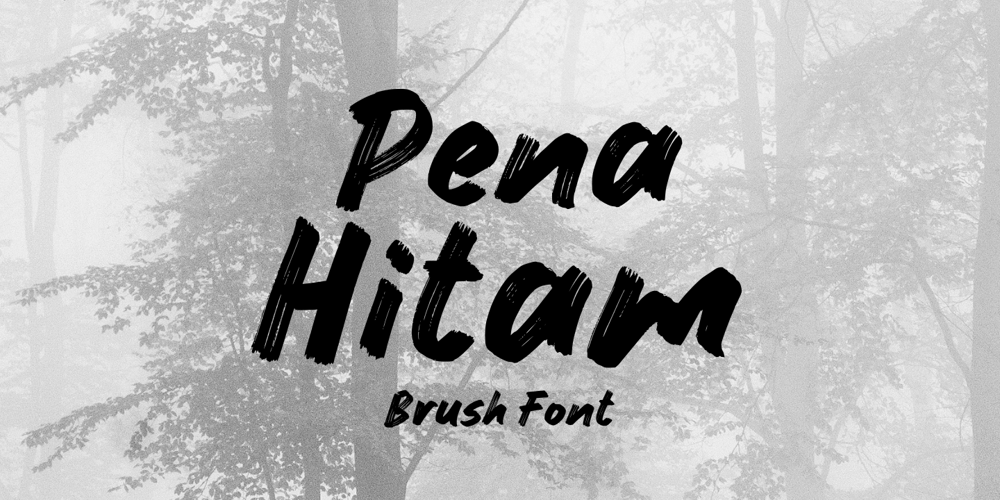
Pena Hitam Font Family was designed by Muhamad Yusron Billah and published by Sronstudio. Pena Hitam contains 1 styles and family package options. Pena Hitam is a bold handbrush font that brings a raw and authentic feel to your designs. Its natural brush strokes add energy and character, making it perfect for posters, branding, packaging, and creative projects that need a touch of artistic flair.Included:- Upper & Lowercase- Numeral & Punctuation- PUA Encoded- Multilingual support- Simple Installation- Work both on Mac and WindowsThank you very much ๐